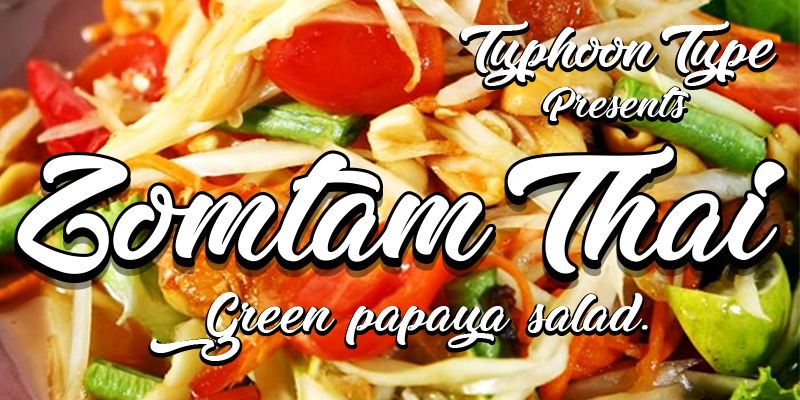
Zomtam Thai Script Font
Hi Designer, Coming again to complete your script font collection..! Introducing Zomtam Thai Script Font! Zomtam Thai designed and shared by  Typhoon Type – Suthi Srisopha. The monoline beauty script for your beautiful artwork. with dancing baseline in the font give’s you the feeling of freedom This fonts are great for any beauty project such as logo design, headline website, business card, mug design, tote bag, clothes, invitation card, etc.